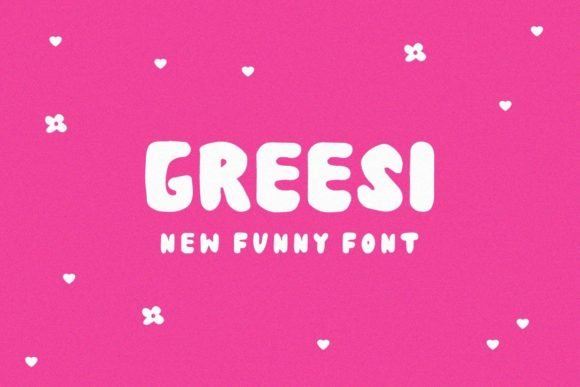
The Joy of Typography: Discovering the Greesi Font
As a designer, have you ever found yourself staring at a blank page, trying to conjure up the perfect font to match the playful vibe of your project? It’s a feeling we’ve all experienced at some point – the thrill of creation, the pressure to get it just right. But what if you stumbled upon a font that perfectly captured the essence of whimsy and fun?
Enter the Greesi Font, a delightful display font designed to spread joy and happiness in every project it touches. Whether you’re creating a cartoon, a children’s game, or a book cover, this font is the perfect companion to bring your ideas to life. With its cute, bubbly, and friendly aesthetic, Greesi Font is a valuable addition to any designer’s toolkit.
Greesi Font Key Features
- Font Family: Greesi Font is a sans-serif font family designed for digital use.
- Unique Characteristics: Greesi Font features a clean, modern design with a subtle rounded edge, making it suitable for various digital applications, including web design, mobile apps, and digital signage.
Greesi Font Review
Overall, I found the Greesi Font to be a decent option for typography, with a unique flair that can add some personality to your designs. Here are some of its strengths:
- ✨ **Playful feel**: The Greesi Font has a whimsical, childlike quality that can work well for creative or humorous projects.
- ✨ **Highly customizable**: The font comes with a range of OpenType features, allowing for easy adjustments to size, weight, and style.
- ✨ **Variety of weights**: Greesi Font offers a good selection of weights, from light to bold, giving designers flexibility when it comes to typography.
- ⚠️ **Limited legibility**: At smaller sizes, the Greesi Font can become difficult to read, particularly in sans-serif mode.
- ⚠️ **Not ideal for formal texts**: The font’s playful nature may not be suitable for more serious or formal projects, where a more traditional font is preferred.
Overall, I’d say the Greesi Font is a good choice for designers looking to add some personality to their work, but may not be the best option for every project.
Practical Application Guide for Greesi Font
Tips for Getting the Most Out of Greesi Font
For optimal results, use Greesi Font for headings and titles, as its bold and playful style works well for emphasizing important text. You can also experiment with different font sizes and colors to create visual interest and hierarchy in your design.
Greesi Font is ideal for designs that require a playful and modern touch, such as:
Alternatives to Greesi Font for Designers
The Greesi Font is a popular font known for its unique, handwritten style. However, designers may seek alternatives to add variety to their designs. Here are a few options: